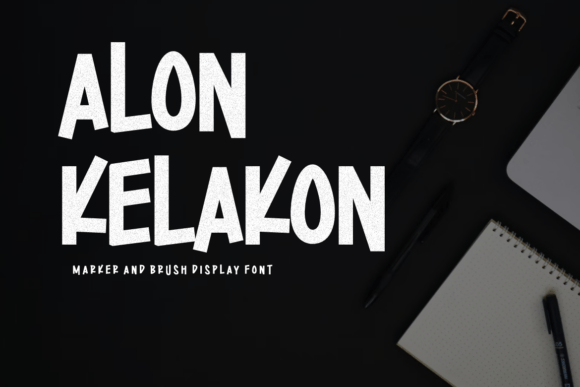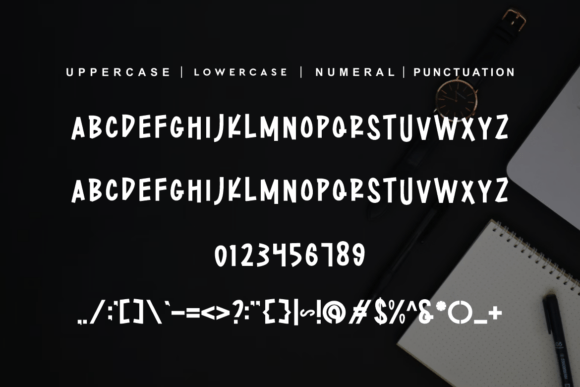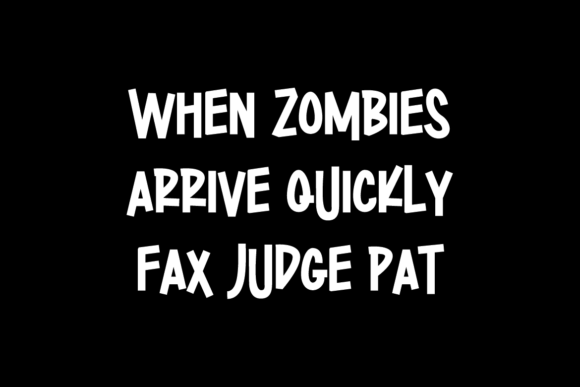
Introduction to Marker Quicked Font
Marker Quicked is a sweet and friendly handwritten font.
👤 Author alonkelakon
Key Features of Marker Quicked Font
Why Choose Marker Quicked Font?